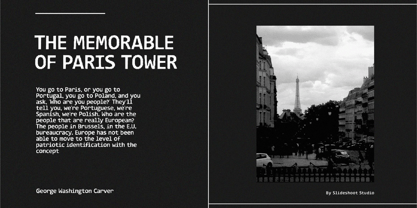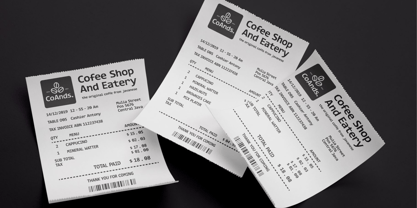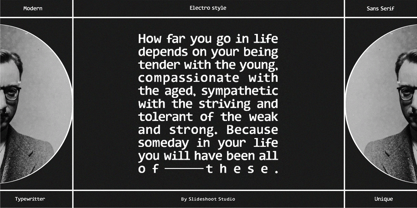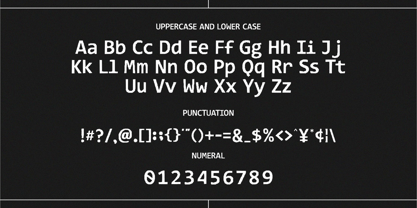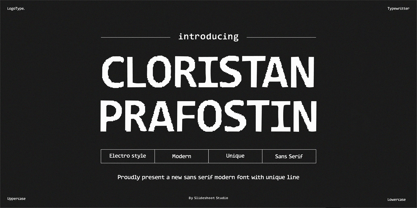
Cloristan Prafostin
von Slide Shoot
Die Schriftfamilie Cloristan Prafostin wurde von Ahmad Riqi entworfen und von Slide Shoot veröffentlicht. Cloristan Prafostin enthält 1 Stile. Mehr über diese Familie
Introducing Cloristan Prafostin Unique sans serif Font is a modern, trendy, bouncy and cute display font. It has a unique character with wood theme. It is perfect to be combined with invitation card designs, company logos, movie titles, movie names, business cards, book titles, brand names and various other designs.
Designer: Ahmad Riqi
Foundry: Slide Shoot